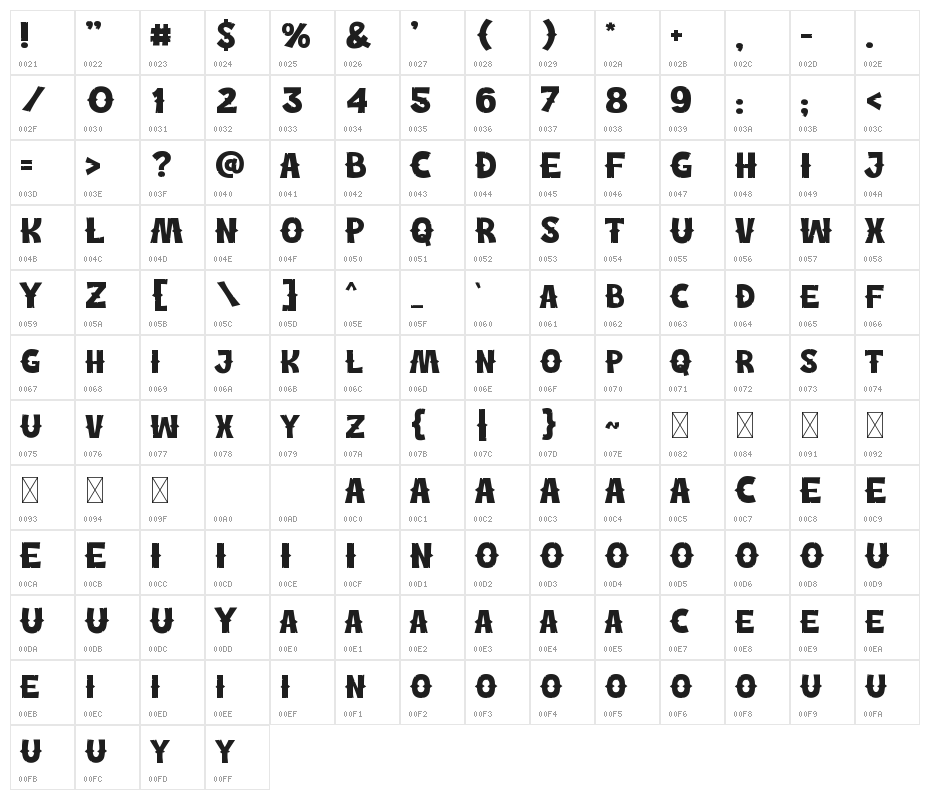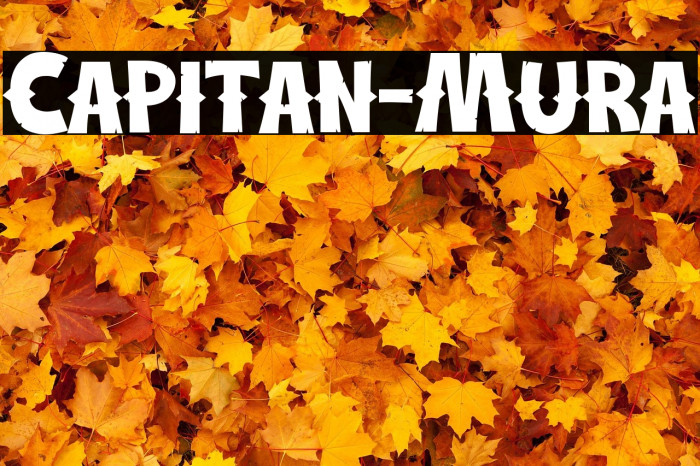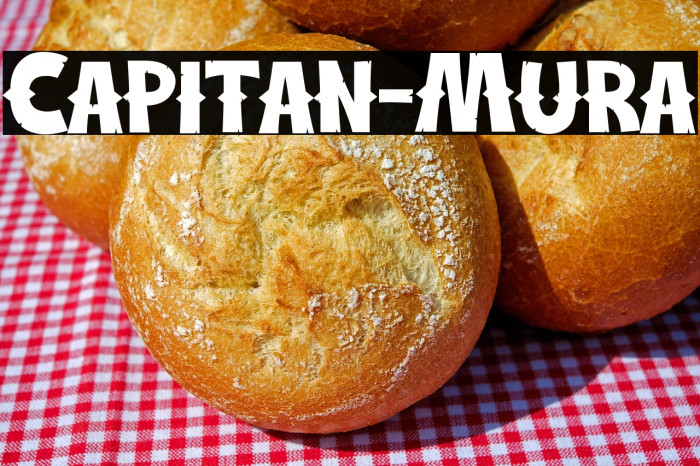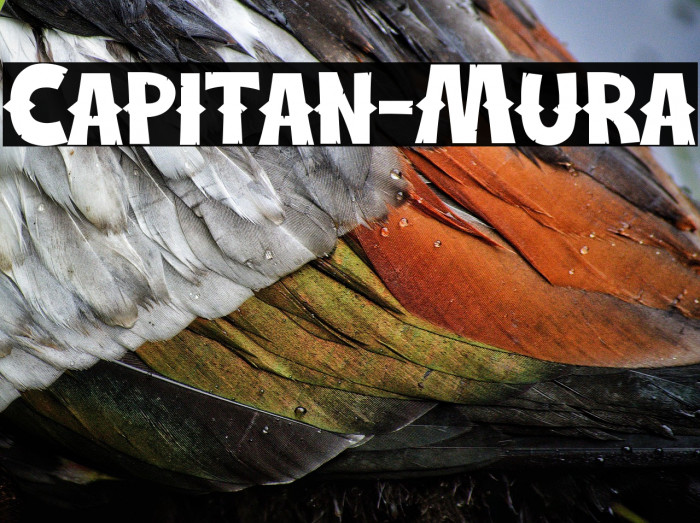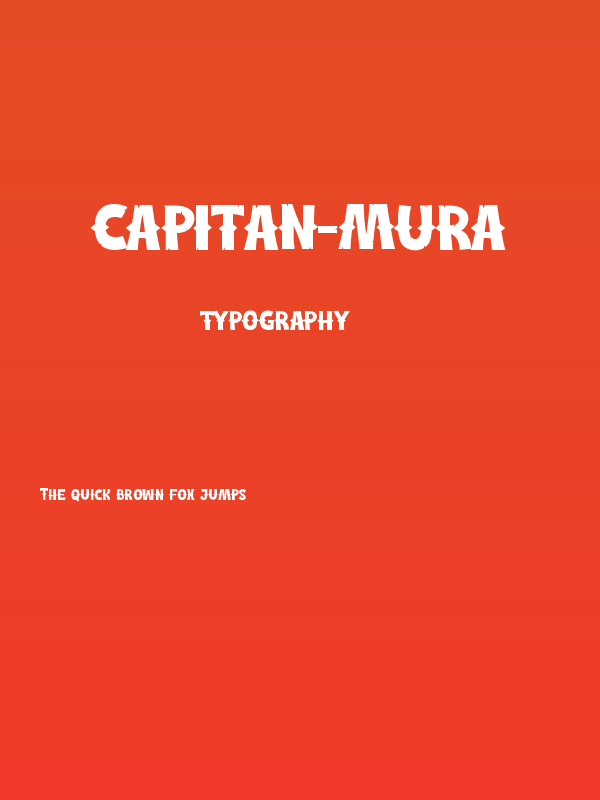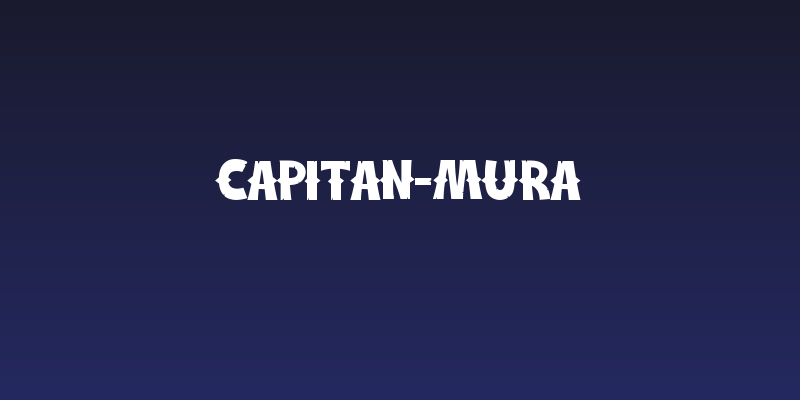
Capitan-Mura Font
Capitan-Mura Description
This font features a bold and dynamic style with a playful and slightly irregular design. The characters are thick and robust, with a strong presence that makes them stand out. The edges are sharp, and the strokes vary in width, adding a sense of movement and energy. This font is highly decorative, with a unique flair that gives it a distinctive personality. The uppercase and lowercase letters maintain a consistent style, while the numbers and special characters complement the overall design. Its boldness and unique character make it suitable for eye-catching designs.
| Proposed Projects | Ideal for posters, logos, headlines, and any project requiring a strong visual impact. |